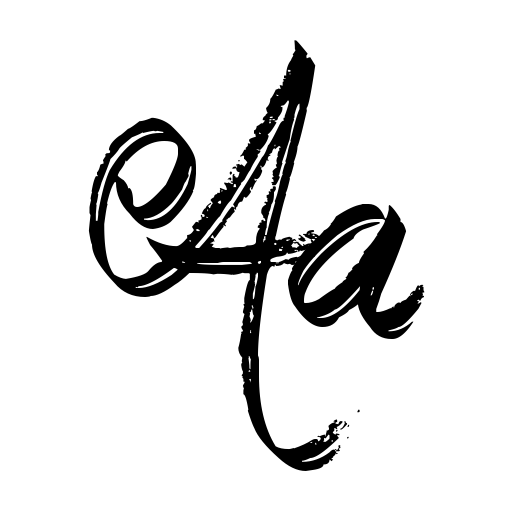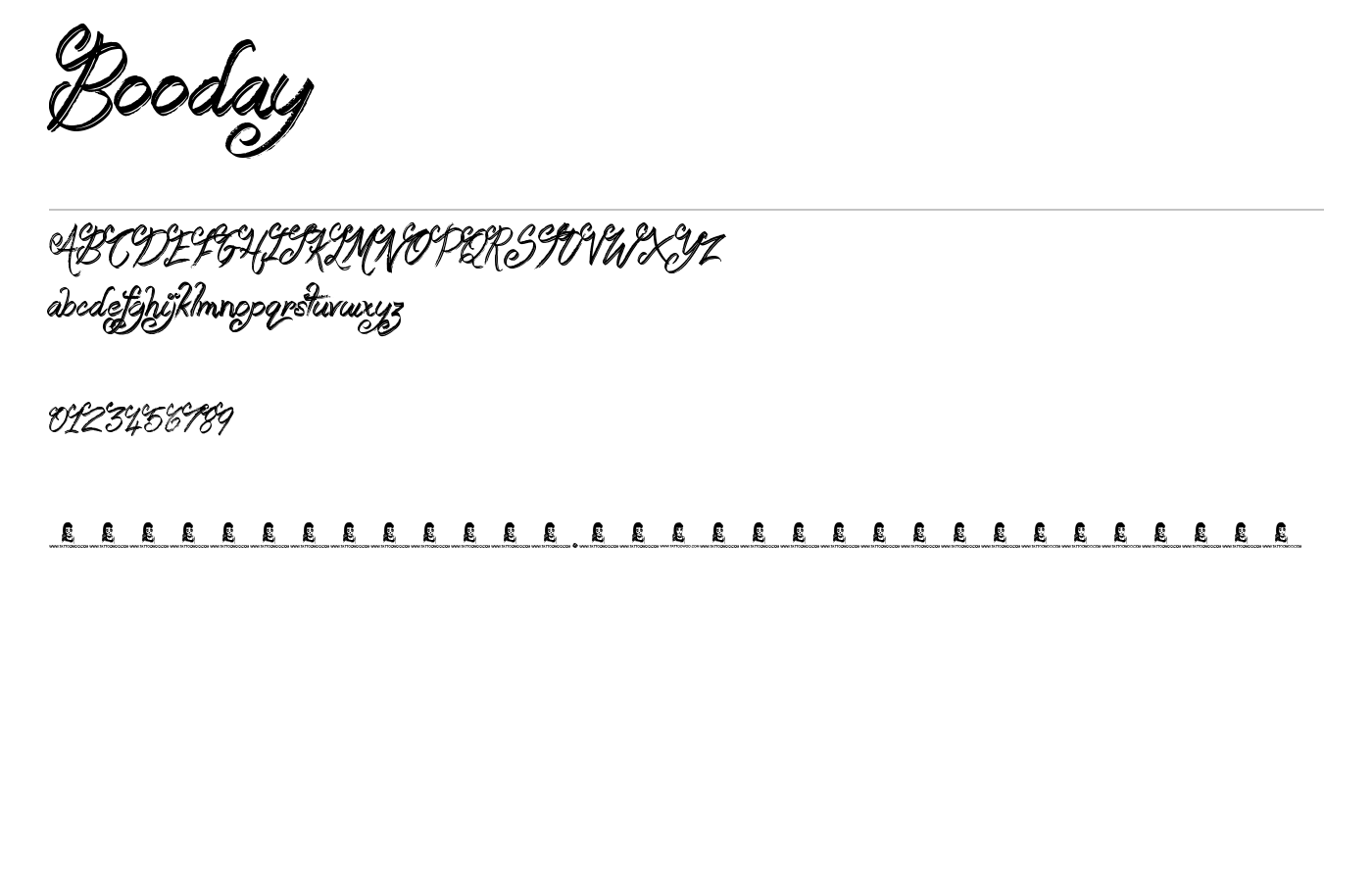
Booday is a decorative script font with a bold, expressive style that features flowing, connected strokes and elegant swashes. Its high contrast and intricate curves give it a lively, artistic feel, making it ideal for creative branding, invitations, and headlines where a personal, handcrafted touch is desired. This font works best in display settings where its unique character can stand out and add flair.
Booday Font